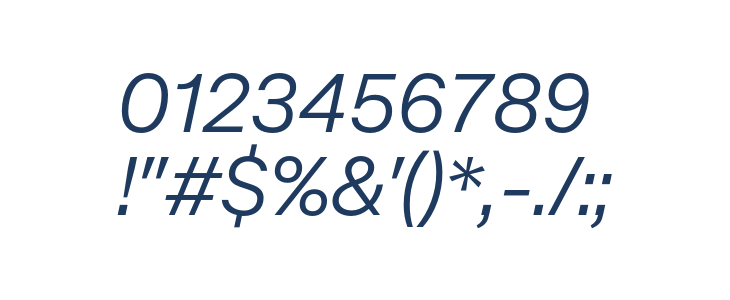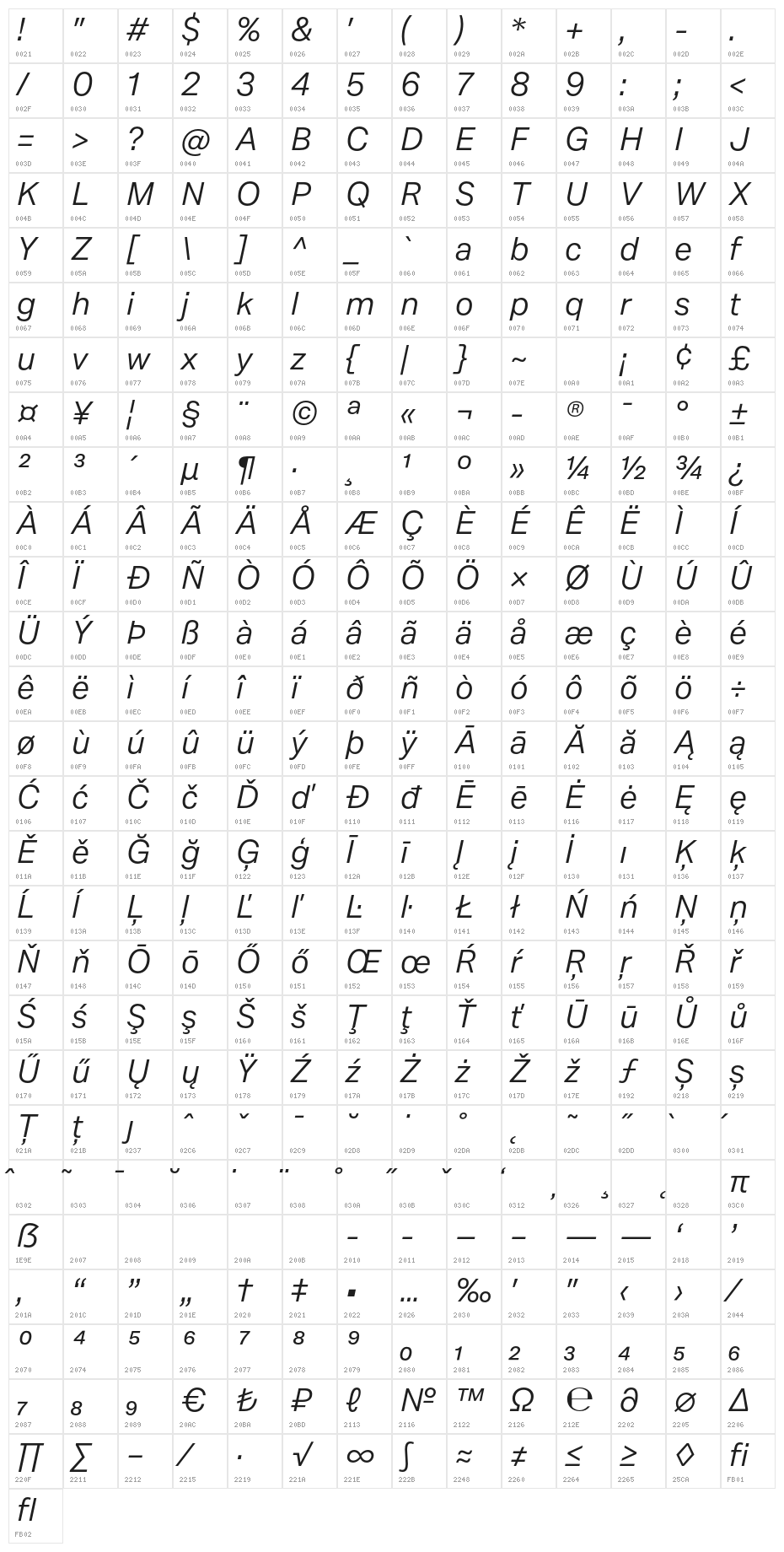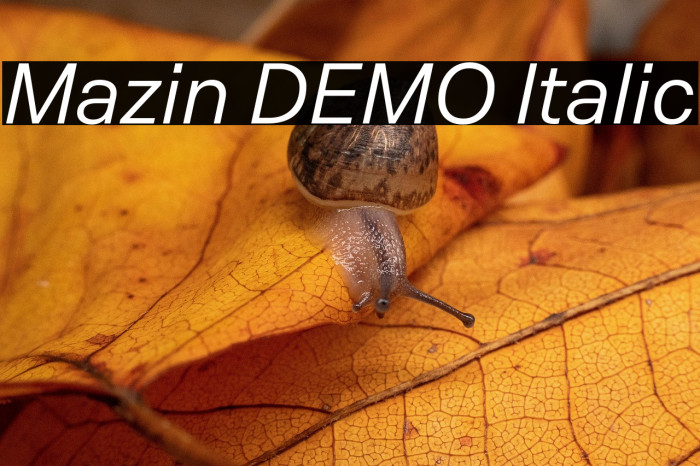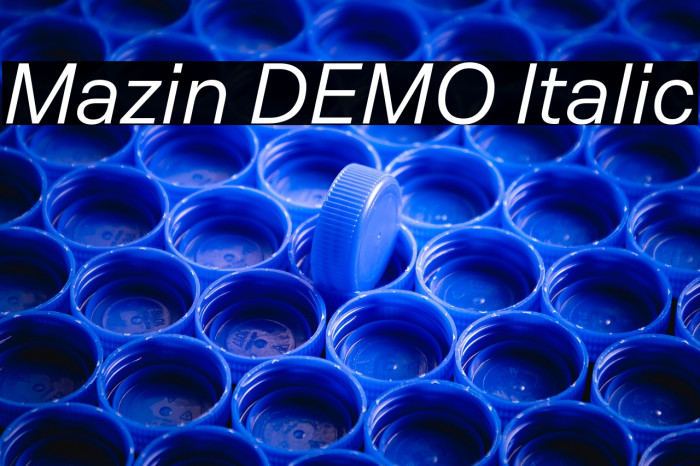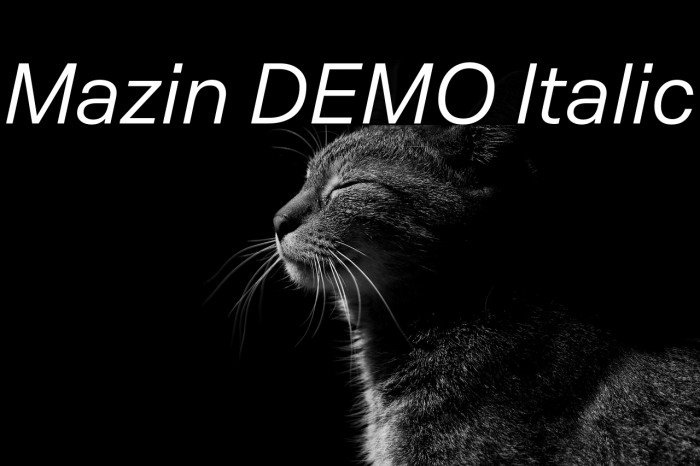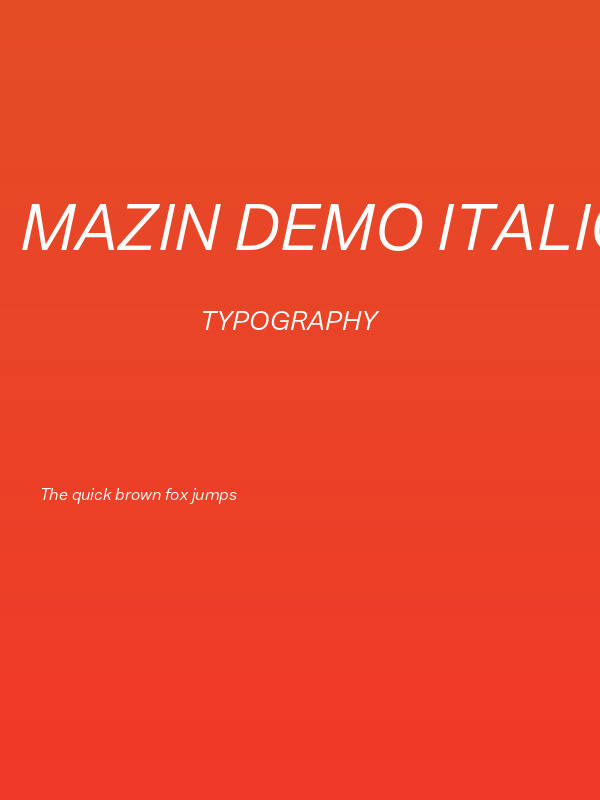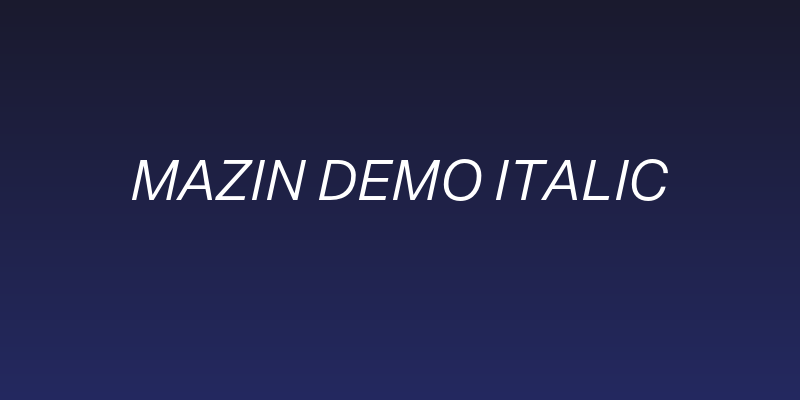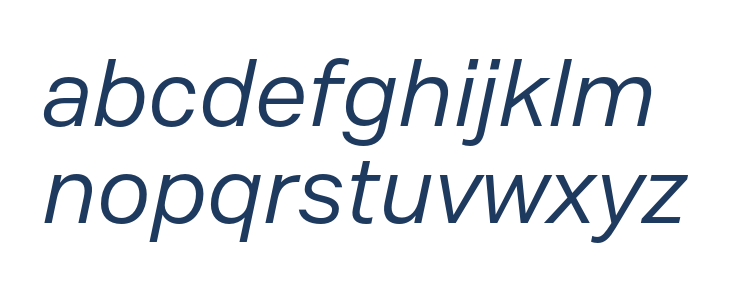
Mazin DEMO Italic Font
Mazin DEMO Italic Description
This font exhibits a sleek, modern aesthetic with a slight slant, giving it an italicized appearance. The characters are clean and well-defined, featuring smooth curves and a consistent stroke width that conveys a sense of elegance and professionalism. The uppercase and lowercase letters maintain a harmonious balance, while the numerals are clear and easy to read. Special characters are included, enhancing its versatility for various applications. The overall design is minimalistic yet sophisticated, making it suitable for contemporary design projects.